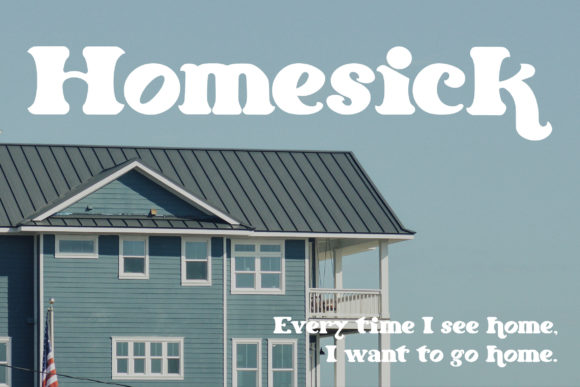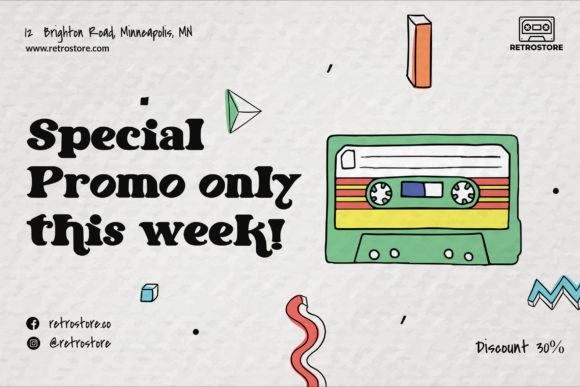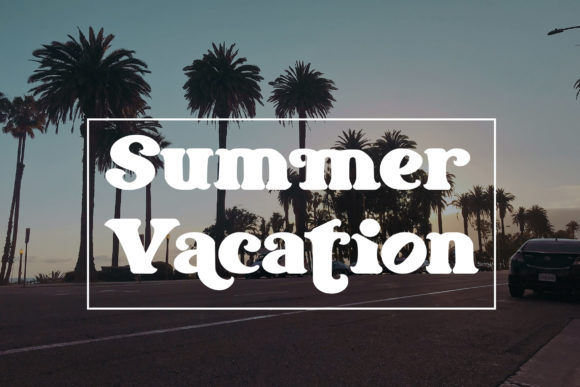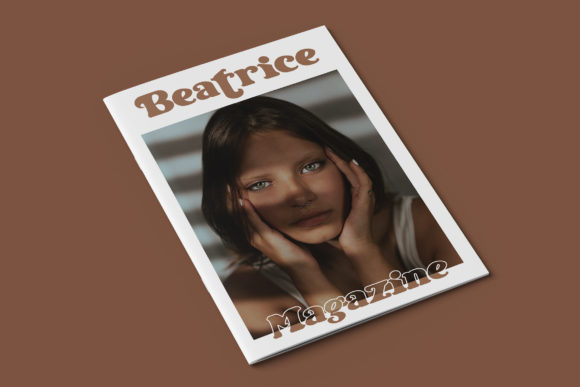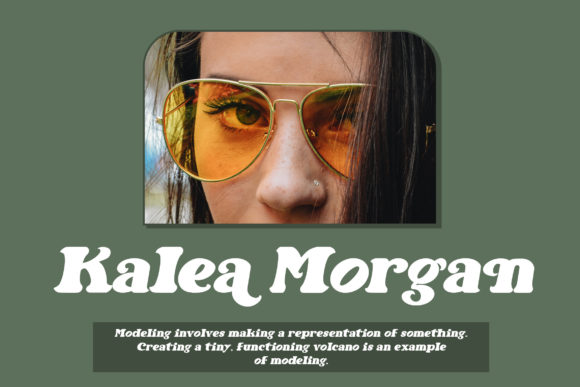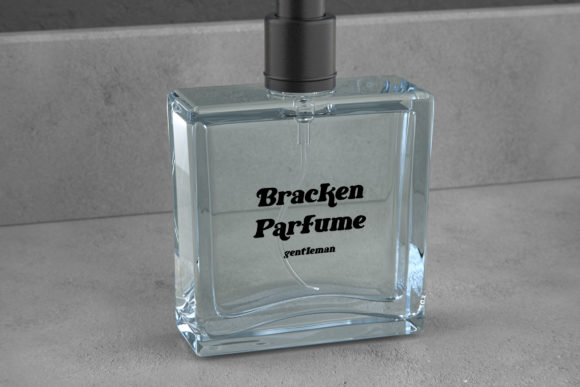
Introduction to Kolhoz Font Font
Fonts play a crucial role in design, and the Kolhoz Font font is a typeface that brings both character and versatility to any project. Whether you’re working on a branding project, a website, or a print design, the Kolhoz Font font offers a unique style that can elevate your work.
| 📌 Font Name | Kolhoz Font |
| 👤 Author | Arendxstudio |
Kolhoz is a modern, retro and thick lettered display font.
It works wonderfully on a variety of designs that require a trendy touch This font is PUA encoded which means you can access all of the beautiful glyphs and swashes with ease.
Key Features of Kolhoz Font Font
Why Choose Kolhoz Font Font?
The Kolhoz Font font is more than just a typeface – it’s a design tool that helps you communicate your message with style and clarity. Its unique character set and versatile design make it suitable for a wide range of applications, from elegant invitations to bold headlines.
With its carefully crafted letterforms and balanced proportions, the Kolhoz Font font ensures readability and visual appeal across all mediums.
What makes Kolhoz Font font special?
The Kolhoz Font font stands out with its unique design, exceptional readability, and versatility across various design applications.